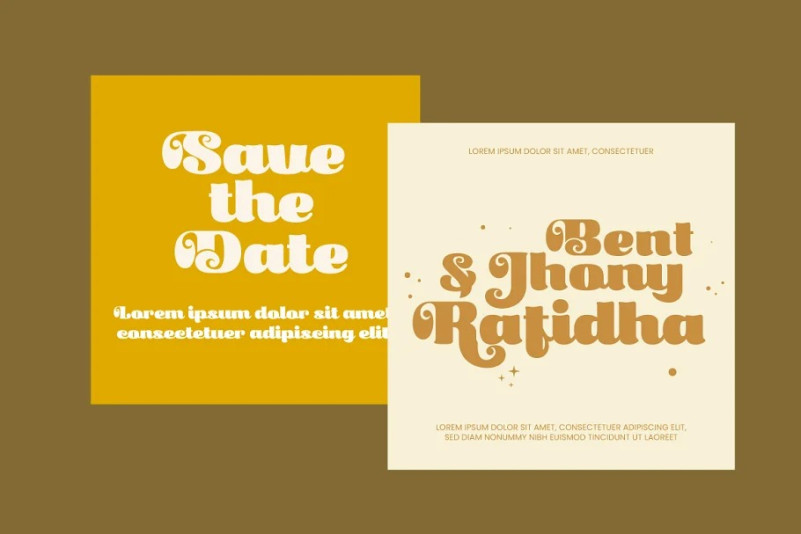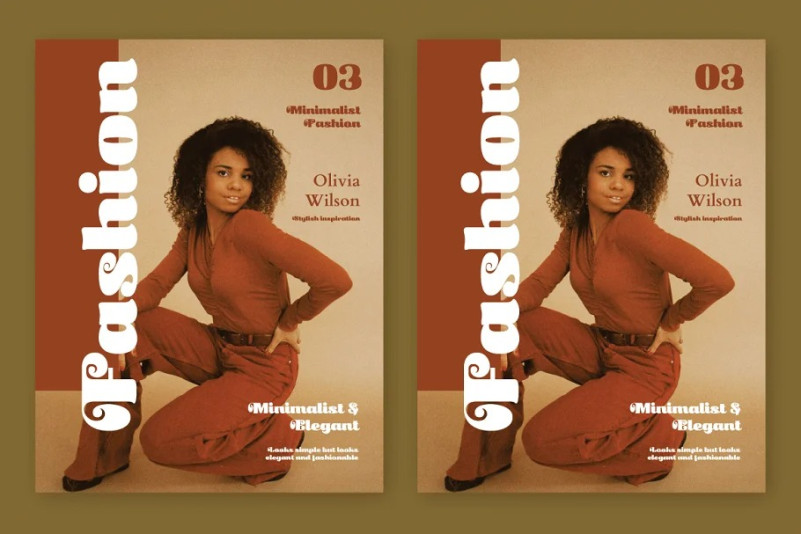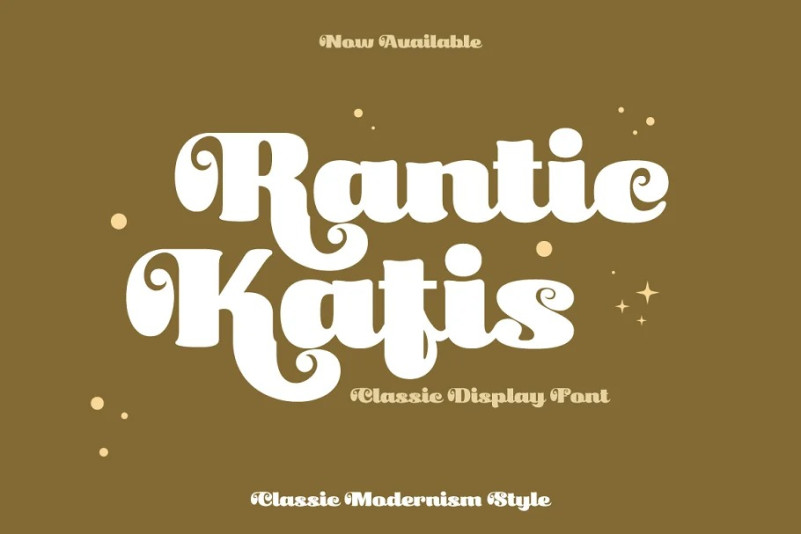
Rantic Kafis Font
Introducing Rantic Kafis Display Font, a classic modern font with a bold and elegant touch. This font features thick strokes and rounded edges, giving it a distinctive and sophisticated look. With its stylistic set options for upper and lowercase letters, Rantic Kafis adds a touch of individuality and creativity to any design.
Rantic Kafis is the perfect font to add a classic modern feel to your work. Its thick strokes and rounded edges make it highly legible, ensuring that your designs are easy to read and understand.